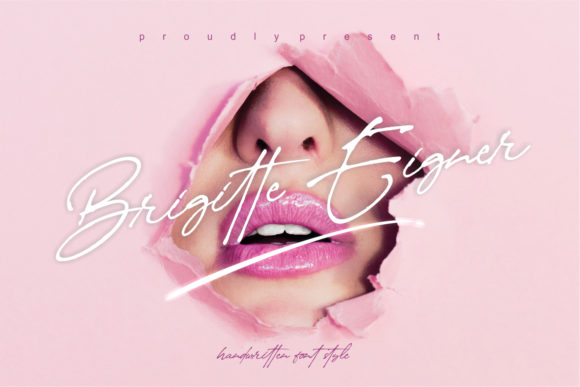
The Brigitte Eigner Font: A Handwritten Gem for Creative Projects
I’ll never forget the time I was working on a wedding invitation project, and I just couldn’t find the perfect font to capture the couple’s whimsical and romantic style. I scrolled through page after page of Google results, but nothing seemed quite right. That was until I stumbled upon the Brigitte Eigner font. Its natural, handwritten feel instantly won me over, and I knew I had found the perfect fit. In this article, I’ll share my love for this beautiful font, its features, and how to make the most of it in your creative projects.
An Honest Review of Brigitte Eigner
- ✨ The authentic, handwritten feel that adds a personal touch to any project
- ✅ The font’s versatility, making it suitable for a wide range of applications, from wedding invitations to social media posts
- 💕 The beautiful, flowing connections between letters that create a sense of movement and elegance
- 🎨 The font’s excellent performance in both digital and print formats
While Brigitte Eigner is an amazing font, there are a few things to keep in mind:
- ⚠️ The font may not be the best choice for very small text sizes, as some details may get lost
- 🤔 Some users may find the font’s irregularities and imperfections too pronounced, which can be a deliberate design choice but may not suit every project’s tone
- Experiment with OpenType features, such as ligatures and stylistic alternates, to add more personality to your text
- Explore the font’s glyphs and OpenType features to create stunning text effects
The Story Behind Brigitte Eigner
Brigitte Eigner was designed with the intention of capturing the essence of handwritten communication in a digital age. The font’s creator aimed to craft a typeface that feels both personal and elegant, making it perfect for a wide range of creative projects. While the exact story behind the font’s creation might be unknown, its charm and character have won over designers and crafters worldwide.
Q: What makes Brigitte Eigner unique?
A: Brigitte Eigner’s unique blend of natural, handwritten feel and elegant connections between letters sets it apart from other fonts.
Q: Is Brigitte Eigner suitable for body text?
A: While Brigitte Eigner is beautiful, it may not be the best choice for long body text due to its handwritten nature and possible limitations at small text sizes.